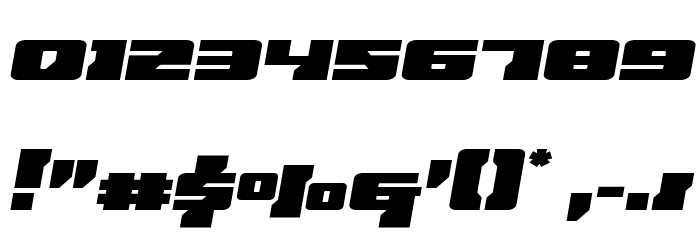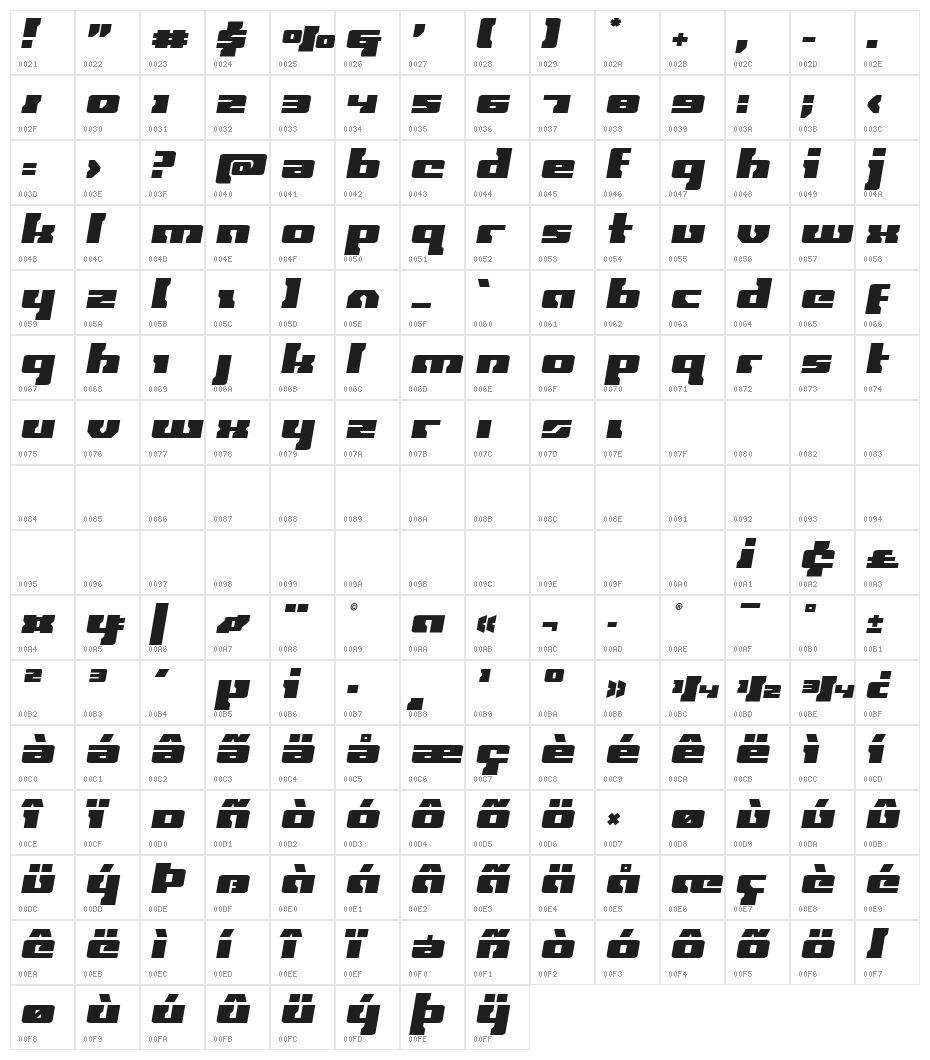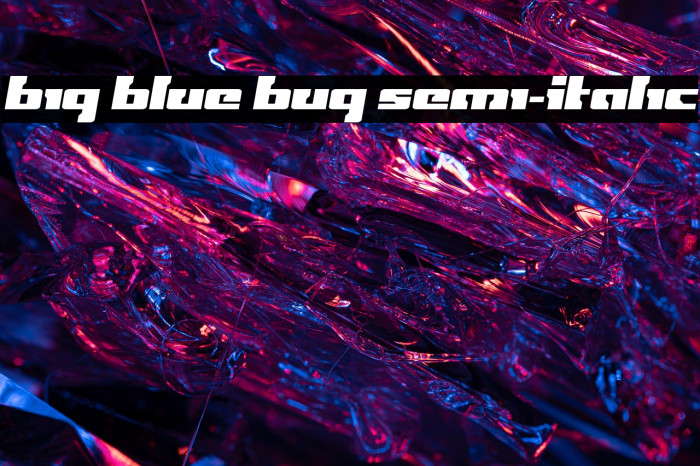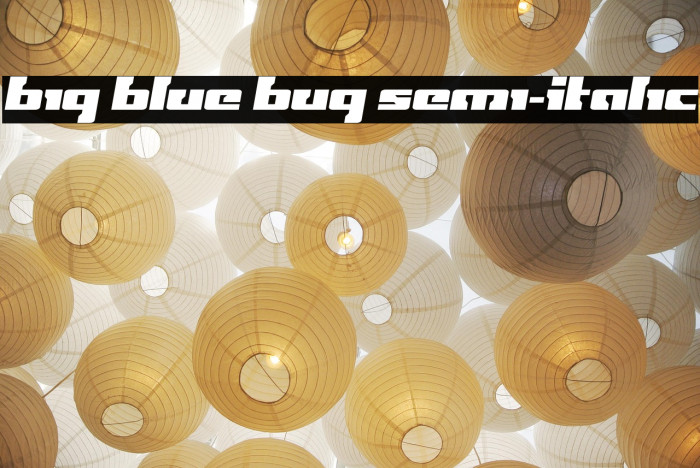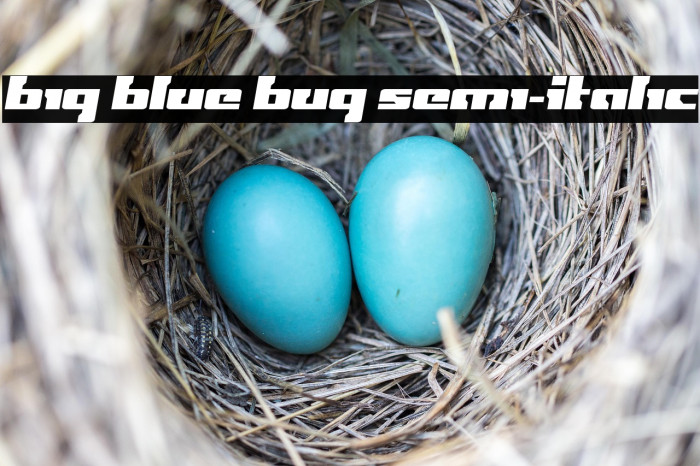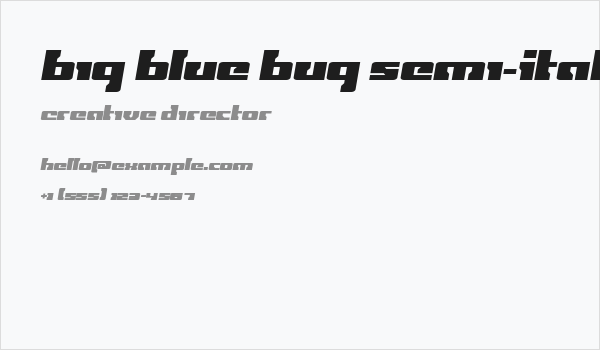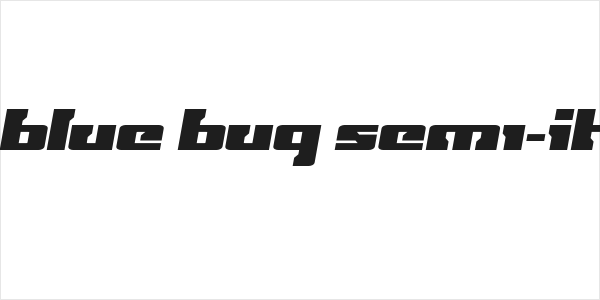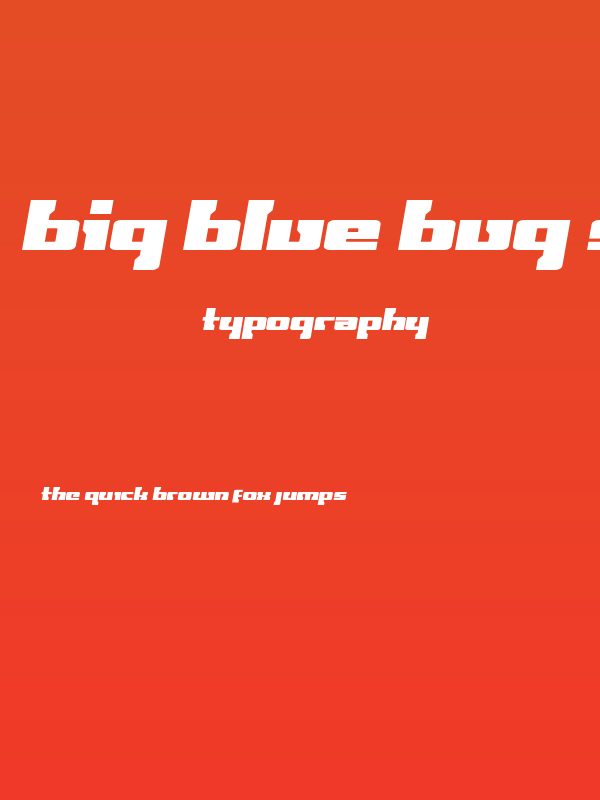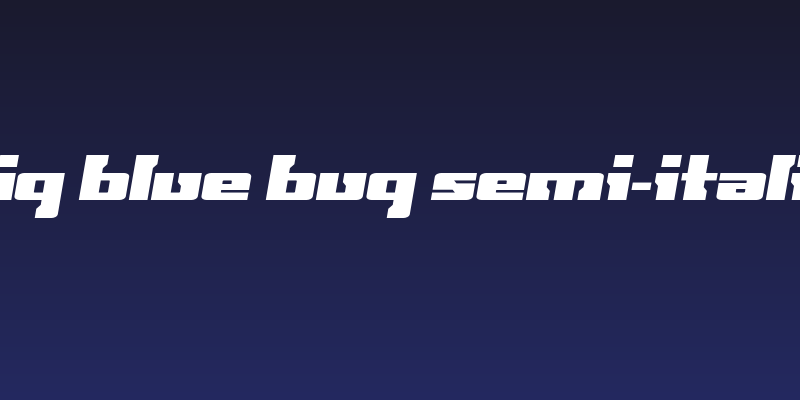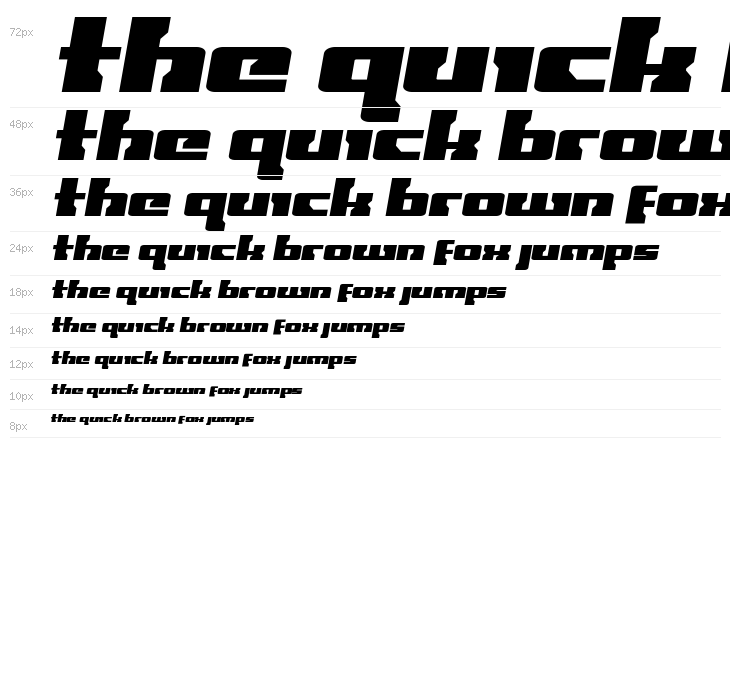
Big Blue Bug Semi-Italic Font
Big Blue Bug Semi-Italic Description
This font features a bold and dynamic design with a semi-italic slant, giving it a sense of movement and energy. The characters are thick and robust, with angular edges and a slightly condensed form. The uppercase and lowercase letters maintain a consistent style, while the numbers and special characters integrate seamlessly with the overall aesthetic. The font's boldness and unique style make it stand out, suitable for projects that require a strong visual impact.
| Proposed Projects | Ideal for sports branding, action-themed posters, video game titles, and dynamic advertising campaigns. |